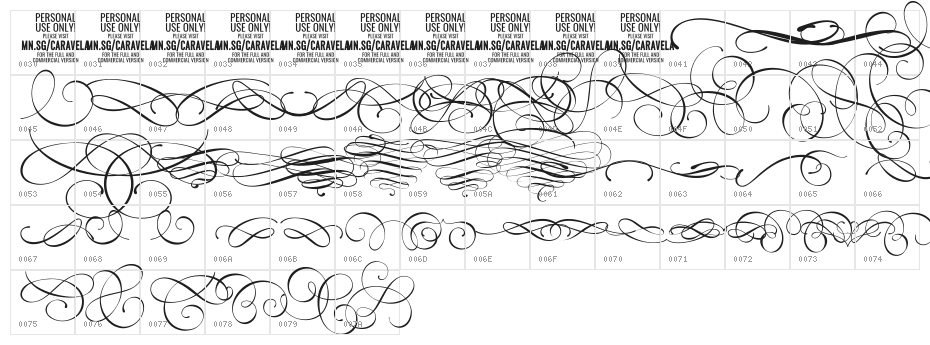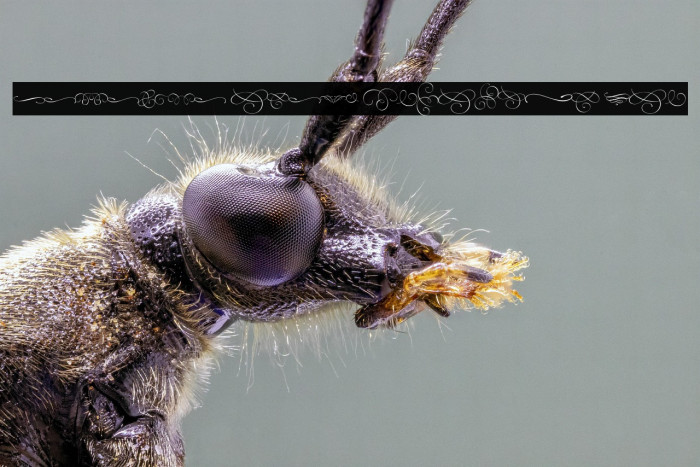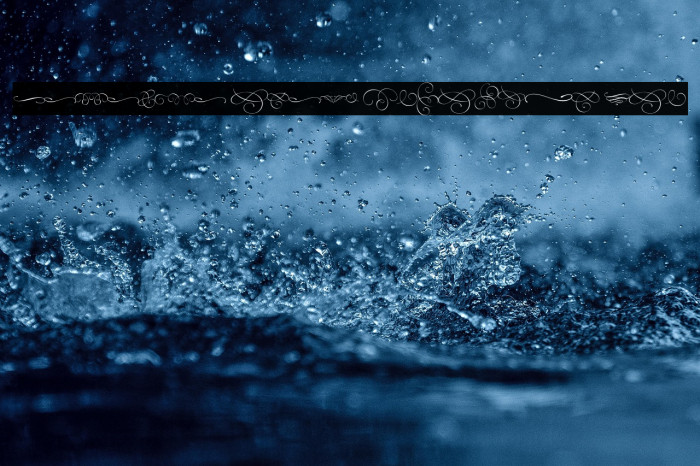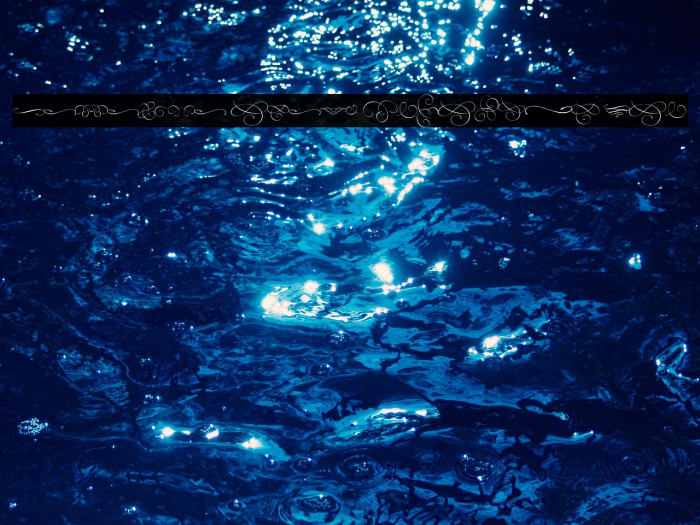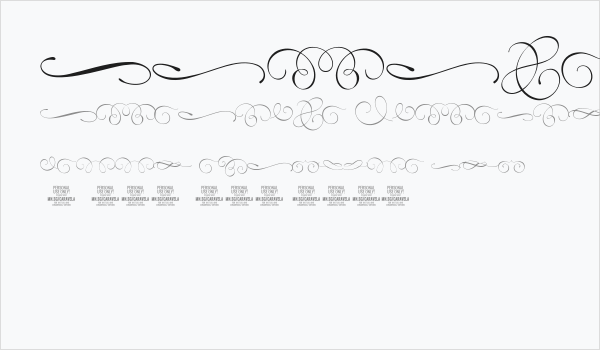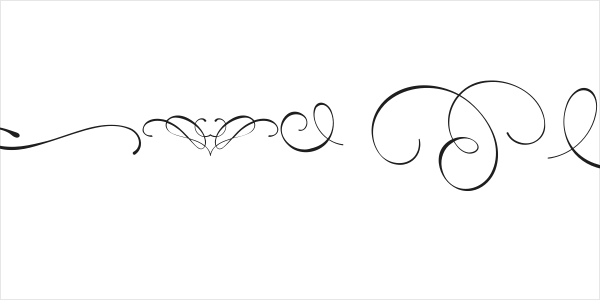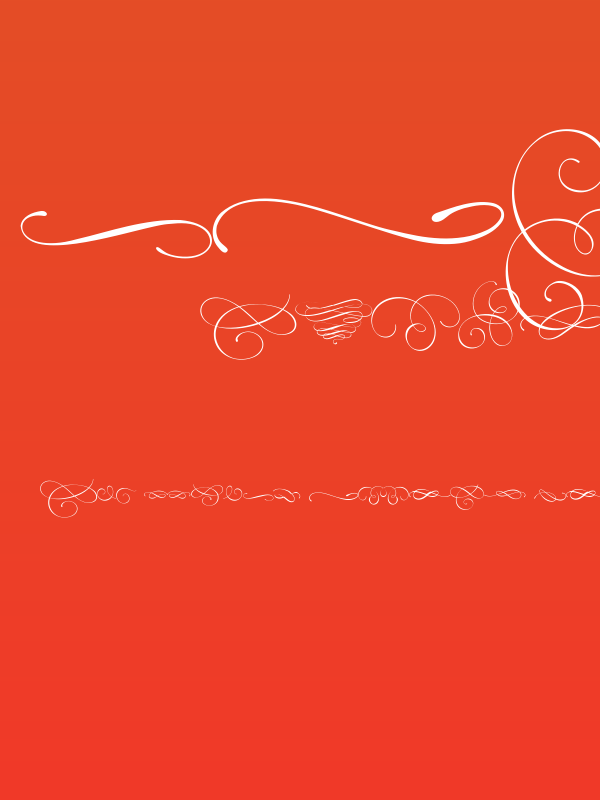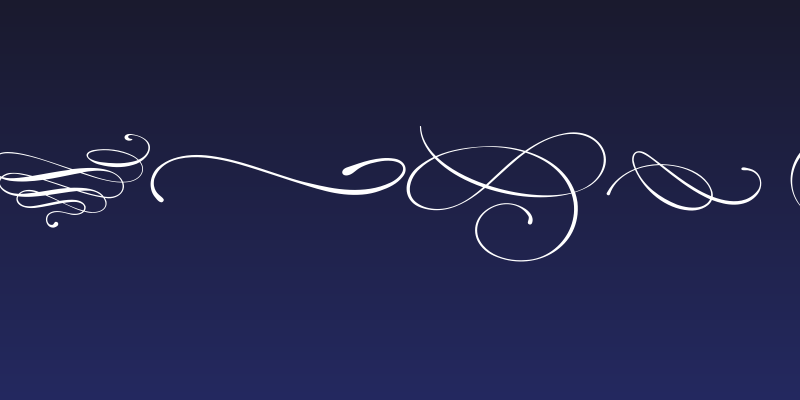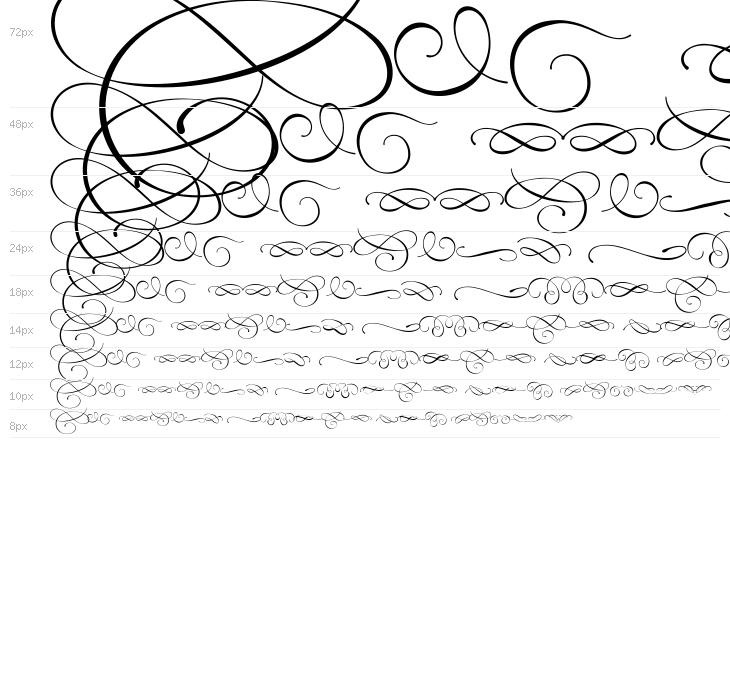
Caravela Swash PERSONAL USE Font
Caravela Swash PERSONAL USE Description
This is not a traditional font but rather a collection of decorative swashes and flourishes. The elements are highly ornamental, featuring intricate loops and curves that create a sense of elegance and sophistication. These designs are reminiscent of classic calligraphy and are perfect for adding a touch of refinement to any project. The swashes vary in complexity, with some being simple and others more elaborate, providing a wide range of options for embellishment.
Use CaseDecorative elements for design projects.
Proposed ProjectsIdeal for wedding invitations, certificates, greeting cards, and any project requiring elegant embellishments.